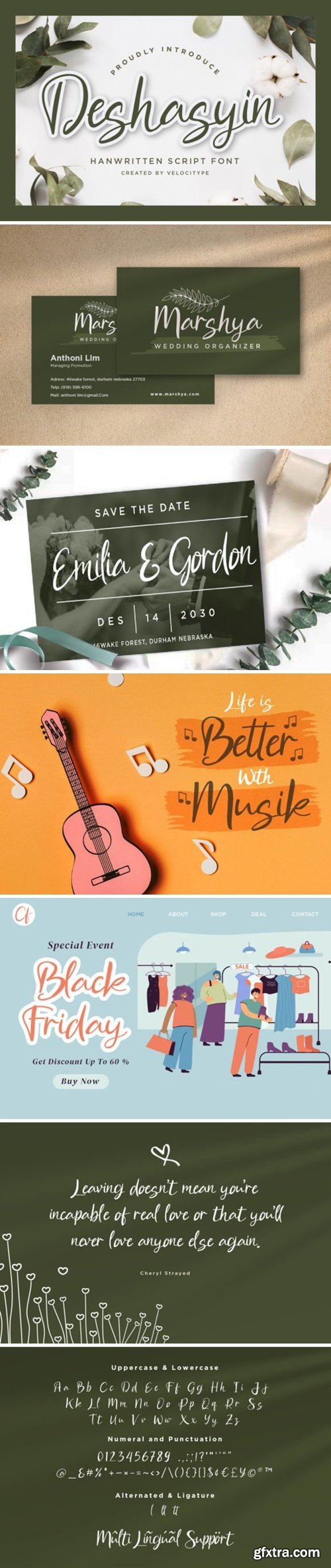
Deshasyin Font
Experience the timeless beauty of our script font, which embodies elegance and grace in every letter. Deshasyin’s intricate and detailed strokes evoke a sense of luxury and sophistication, making it the perfect choice for high-end designs that demand refinement. Add a touch of exquisite style to your projects with this font. This font is PUA encoded which means you can access all glyphs and swashes effortlessly!
The Billion Butterfly Font
The Billion Butterfly is a an elegant and smooth combine typeface regular and italic serif font. It’s a very versatile font that works great in large. The Billion Butterfly Perfect for editorial projects, Logo design, web font, branding, product packaging, magazine , or simply as a stylish text overlay to any background image.
Molend Font
Introducing Molend – a unique display font that allows you to customize the letter width to create one-of-a-kind designs. With its futuristic, techno, brutalist, and experimental styles. Inspired by kinetic typography and urban style. This font is perfect for display, headline, magazine, editorial, label, logotype, branding, movie, poster, and short quotes.
Salamon Kane Font
Salamon Kane is a timeless classic that evokes the elegance and sophistication of a bygone era. Its intricate and ornate letterforms exude a sense of luxury and refinement, making it perfect for creating vintage-inspired designs. With its rich history and enduring beauty, this font is sure to leave a lasting impression.
Garkia Font
Garkia is an elegant serif font that exudes drama and sophistication. With its sleek lines and beautiful curves, it is perfect for creating striking headlines, editorial designs, and branding materials that demand attention. The bold yet refined look of Garkia makes it an excellent choice for high-end fashion, luxury, and beauty brands.
Funky Font
Funky is a groovy, layered font perfect for your creative projects; mugs, t-shirts, wall prints, labels, stickers, blogs, quotes, greeting cards, tea towels, apparel, pillows, toys, posters, baby clothing, picture books and so much more.
Mushym Arabic Typeface Font
Mushym is an elegant and sophisticated font product that is designed to add a religious and Islamic touch to your designs, making it an excellent choice for Ramadan promotions and other Islamic design projects. The font’s carefully crafted design is sure to impress your audience and enhance the visual appeal of your designs.
Modern Aesthetic Font
Modern Aesthetic Inspired by Renaissance Design Era. Vintage Retro offers beautiful typographic harmony for a diversity of design projects, including logos & branding, social media posts, advertisements & product designs. This font is PUA encoded which means you can access all glyphs and swashes effortlessly!